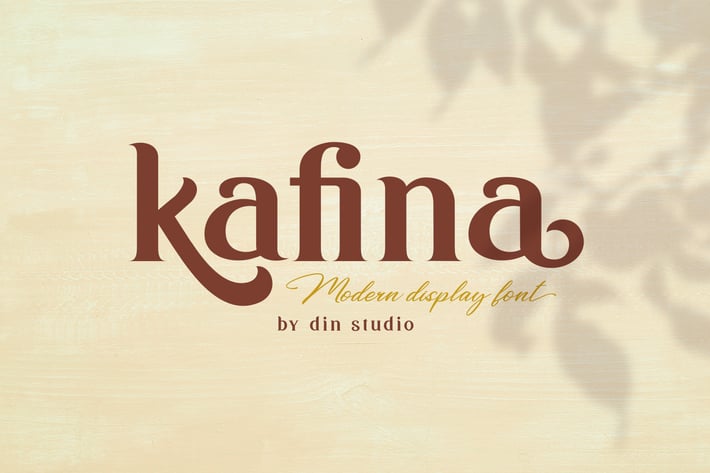
Kafina - Modern Serif Font
Din-Studio
Say hello to Kafina Serif Font, Kafina is a beautiful display font, designed with a modern and bold style. It's suitable for branding, logo, and many other designs.
- 12 Ligatures
- 114 Alternates